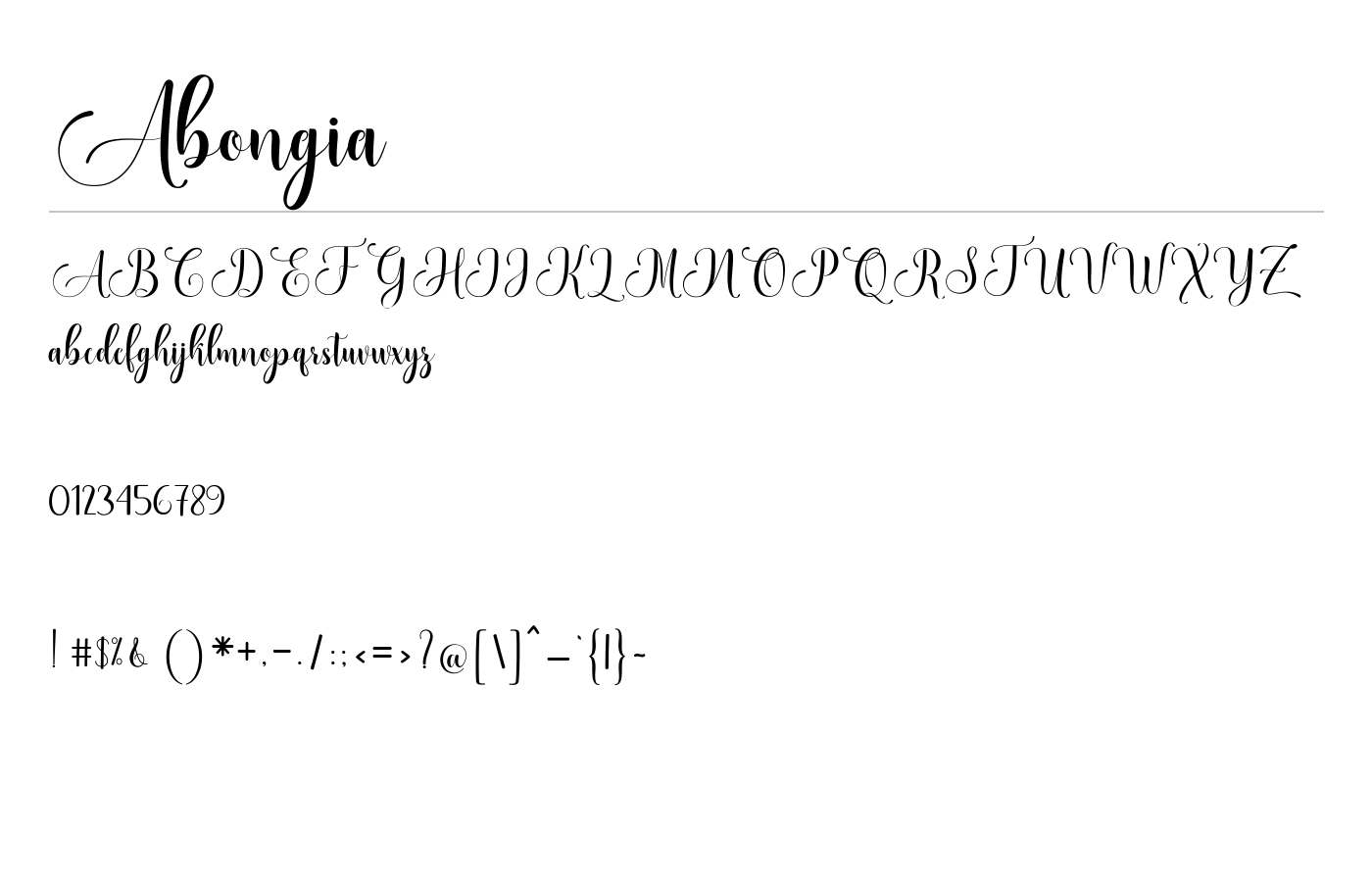
Abongia is an elegant script font with a delicate, high-contrast stroke that gives it a refined and graceful appearance. Its swirly uppercase letters paired with bold, flowing lowercase forms create a stylish and sophisticated personality perfect for luxury branding, wedding invitations, or upscale editorial designs. The font’s airy spacing and unique letter shapes make it ideal for headline use where a touch of romance and flair is desired.
Abongia Font
About Abongia Font